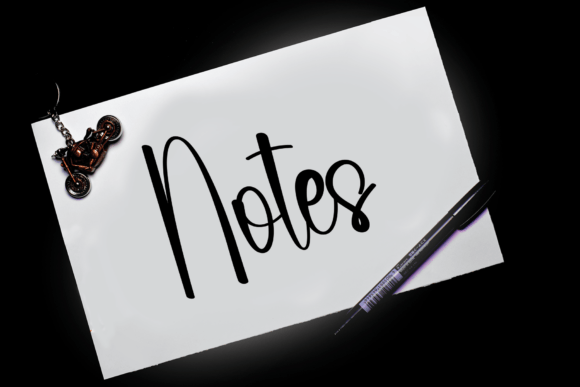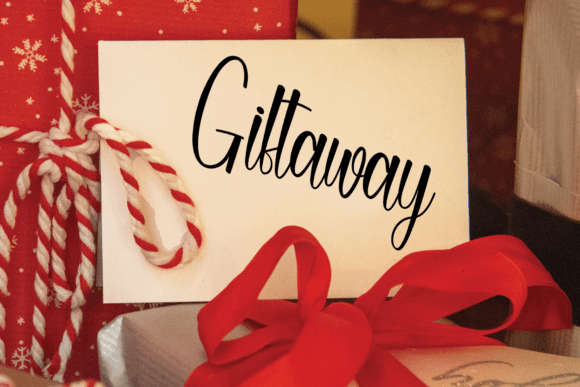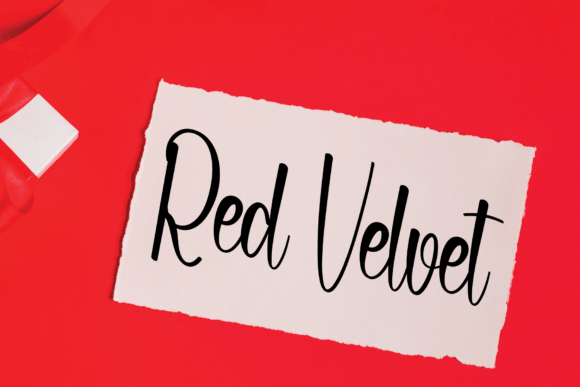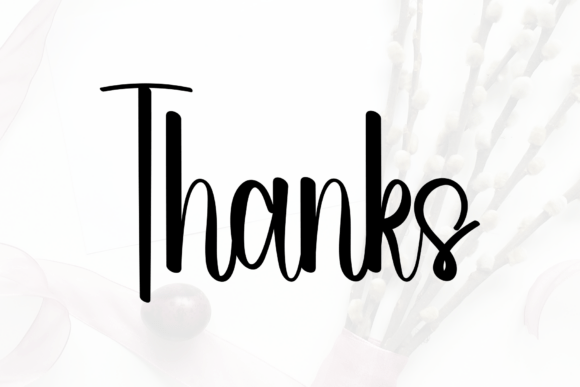
Dalliance Font: Elevate Your Designs with a Relaxed yet Luxurious Handwritten Style
In the world of typography, fonts play a crucial role in conveying the tone and personality of a brand or design. For designers and crafters looking for a unique and elegant handwritten font that exudes a sense of luxury and casual sophistication, Dalliance is an excellent choice. This beautiful font is designed to resemble writing with a marker, giving it a relaxed and sporty feel that’s perfect for a wide range of creative projects.
What is Dalliance Font?
Dalliance is a stunning handwritten font that boasts a distinctive marker-drawn aesthetic. Its effortless, laid-back vibe makes it an ideal choice for designers seeking to add a touch of elegance and refinement to their work without appearing too formal. Whether you’re working on branding, logos, wedding supplies, greeting cards, fashion lookbooks, or marketing promotions, Dalliance is the perfect font to help you achieve your design goals.
Key Features of Dalliance Font
- Handwritten with a marker feel: Dalliance’s unique characteristic is its handwritten style that mimics writing with a marker, giving it a personal and approachable feel.
- Relaxed and sporty: The font’s casual and sporty vibe makes it perfect for designs that require a laid-back yet sophisticated touch.
- Luxurious and elegant: Despite its casual feel, Dalliance exudes luxury and elegance, making it suitable for high-end branding and designs.
- Versatile: This font is incredibly versatile and can be used for a wide range of projects, from wedding stationery to fashion lookbooks and marketing materials.
Use Cases for Dalliance Font
Dalliance is an incredibly versatile font that can be used in various design projects. Here are some of the most popular use cases:
- Branding and logos: Create a lasting impression with Dalliance’s unique and elegant style, perfect for logos and brand identities.
- Wedding supplies: Add a touch of sophistication and romance to your wedding stationery, invitations, and decorations with Dalliance.
- Greeting cards: Create beautiful and heartfelt greeting cards for special occasions with this lovely font.
- Fashion and lookbooks: Elevate your fashion designs and lookbooks with Dalliance’s luxurious and stylish feel.
- Marketing promotions: Stand out from the crowd with Dalliance’s unique and eye-catching style, perfect for marketing materials and promotions.
Tips for Using Dalliance Font Effectively
To get the most out of Dalliance, here are some tips for using it effectively in your designs:
- Pair with contrasting fonts: Combine Dalliance with contrasting fonts to create visual interest and hierarchy in your designs.
- Experiment with colors: Play with different colors to find the perfect match for your design and brand identity.
- Use it sparingly: While Dalliance is a beautiful font, it’s best used sparingly to avoid overwhelming the design.
Dalliance font is a stunning handwritten font that offers a unique blend of elegance, luxury, and casual sophistication. Its versatility and wide range of use cases make it an excellent choice for designers and crafters looking to elevate their designs. With its marker-drawn aesthetic and relaxed yet sporty feel, Dalliance is sure to become a favorite in your font collection.
Whether you’re a seasoned designer or a crafty DIY enthusiast, Dalliance is an excellent addition to your design toolkit. So why not give it a try and see how it can transform your designs?